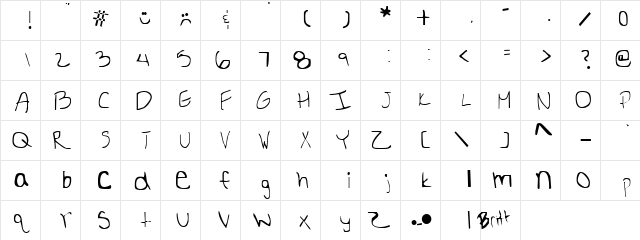
Britts Hand Normal
Design Context for Britts Hand Typeface
Britts Hand flows with the natural rhythm of handwritten lettering, making it ideal for designs that call for warmth and personal expression.
Font Pairing: Combine Britts Hand with a simple geometric sans for maximum contrast — the tension between flowing curves and clean structure is a classic typographic pairing.
Pro Tip: Use Britts Hand for short runs of text — names, titles, or taglines. Extended body copy in script faces tires the eye quickly.